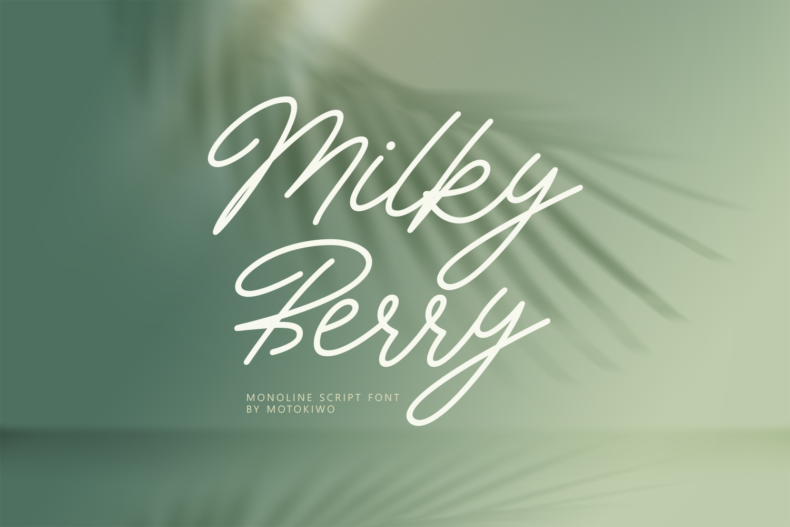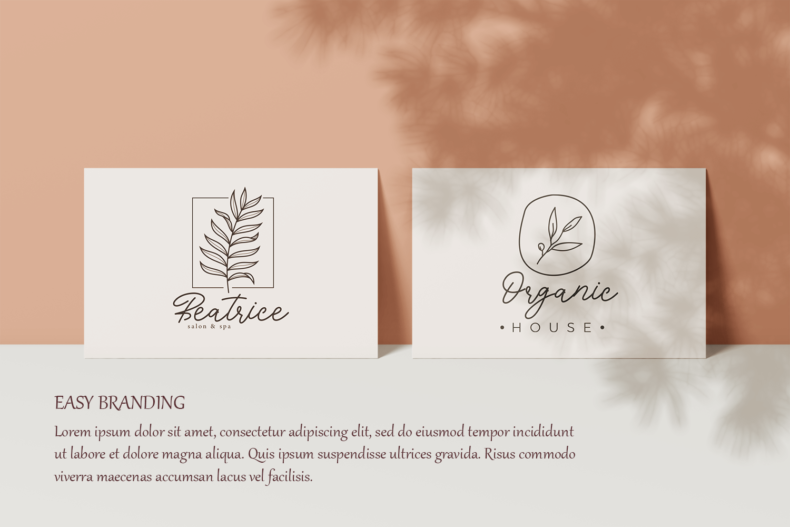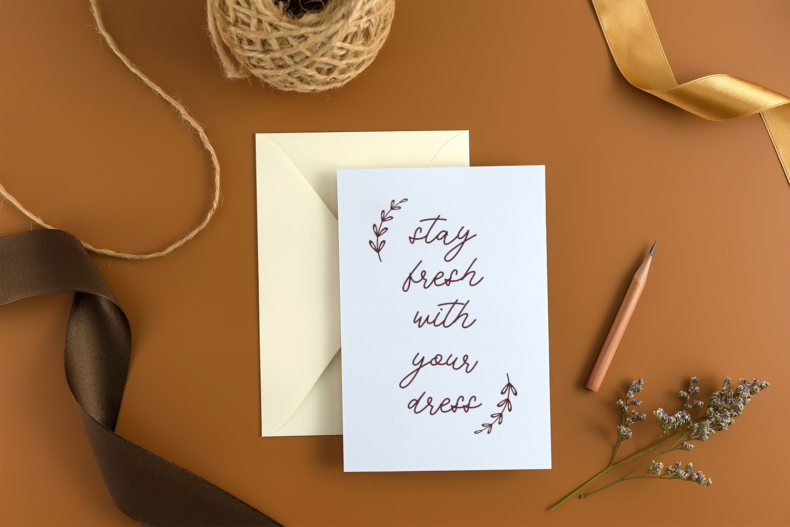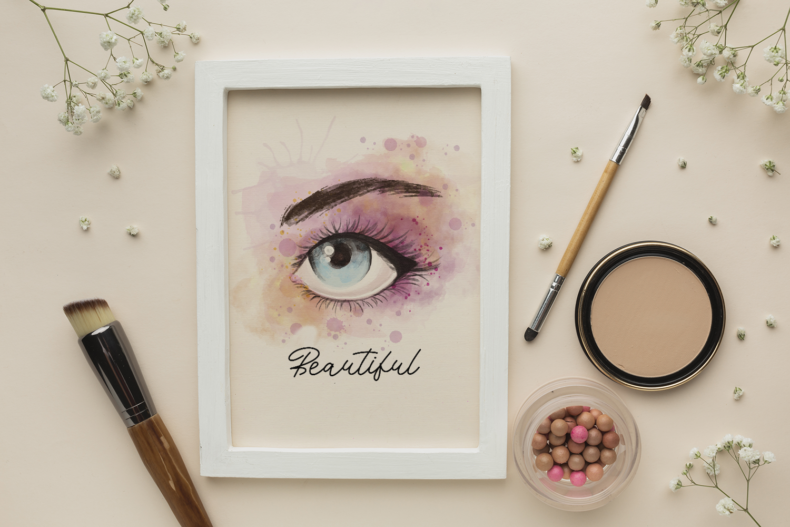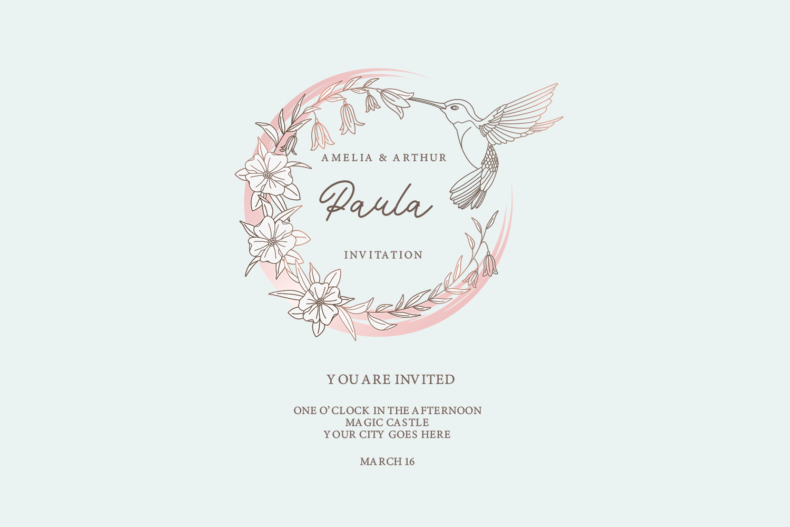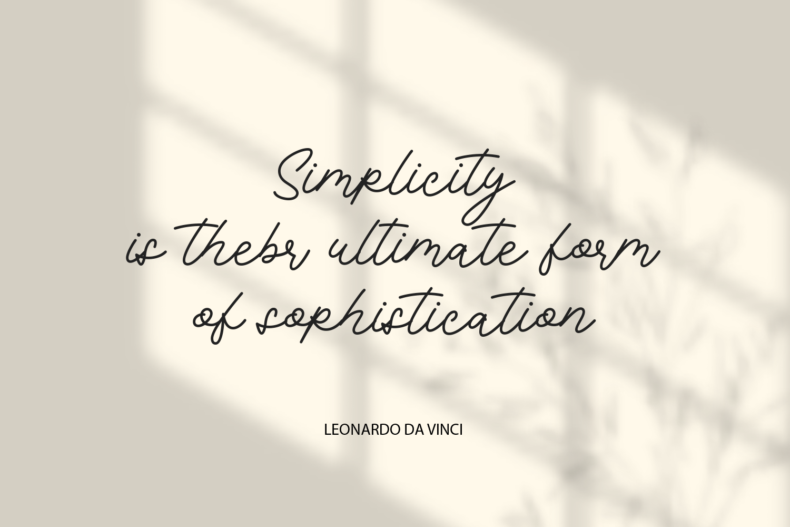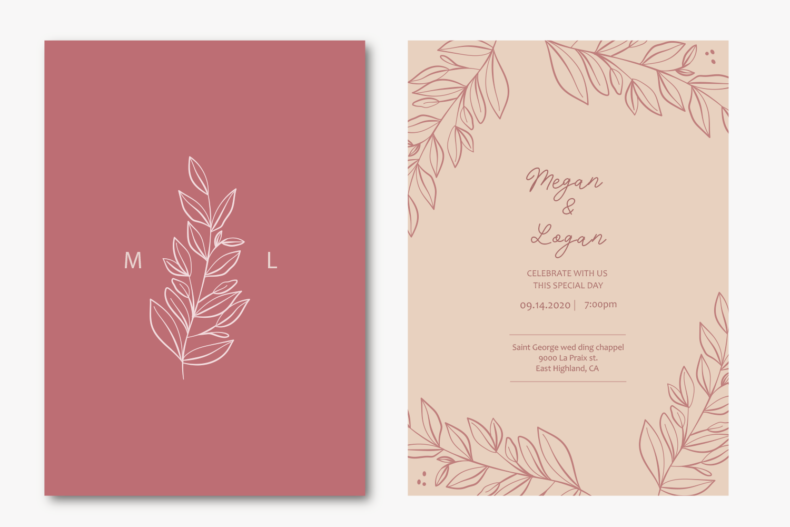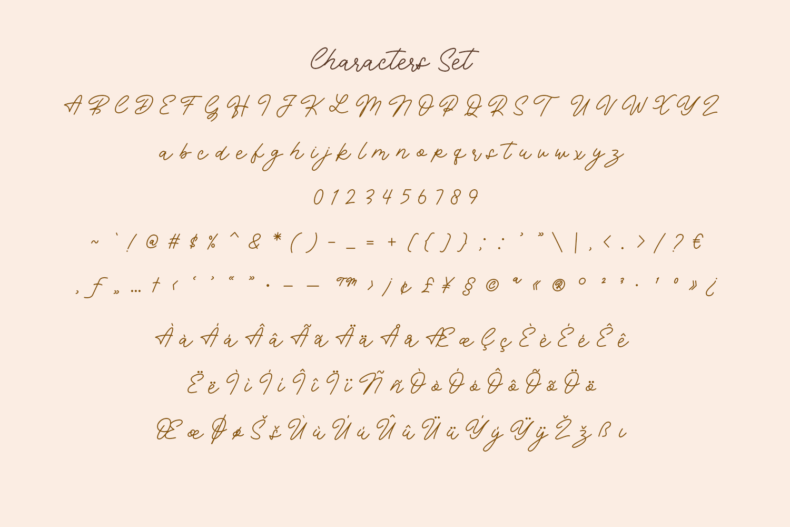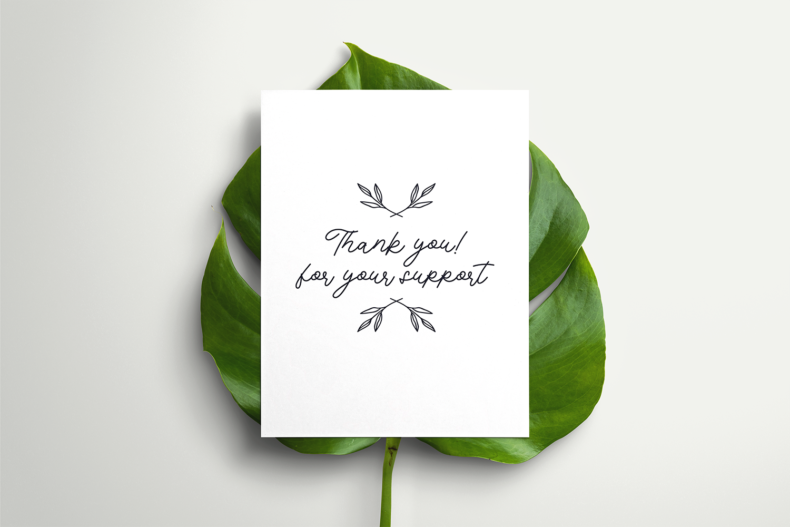
Milky Berry, Casual Script Font
This casual script designed to handle modern and minimalist projects. Say hello to Milky Berry, a monoline script font with feminine organic character style that very suitable for a chic logo brand, cosmetic projects, wedding, quotes, and many more.